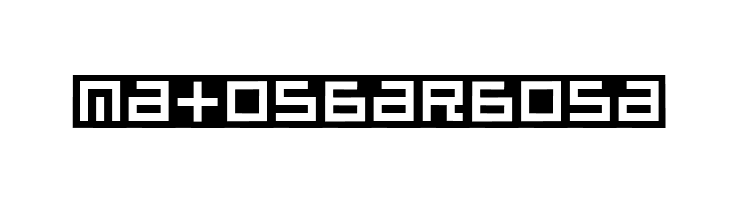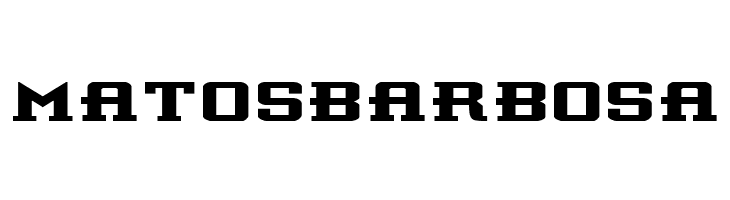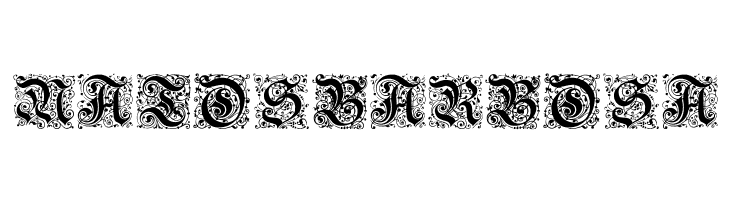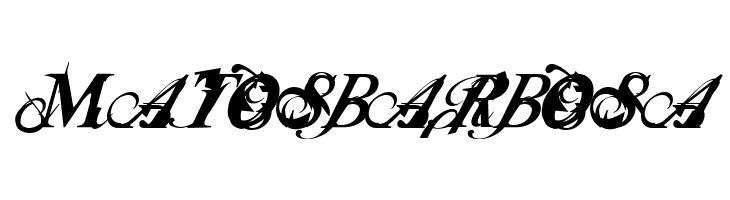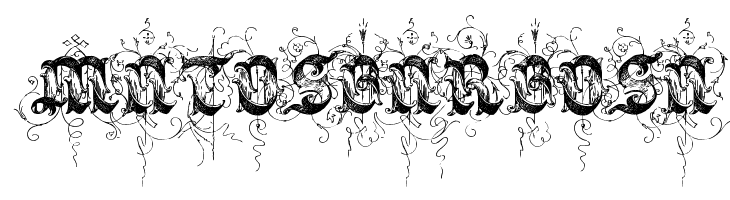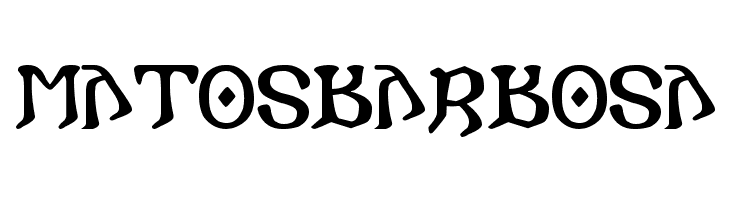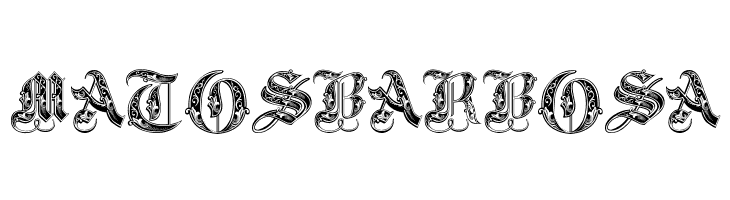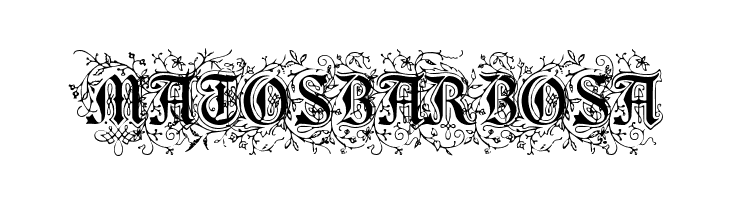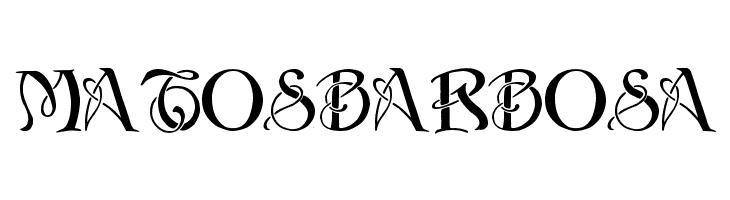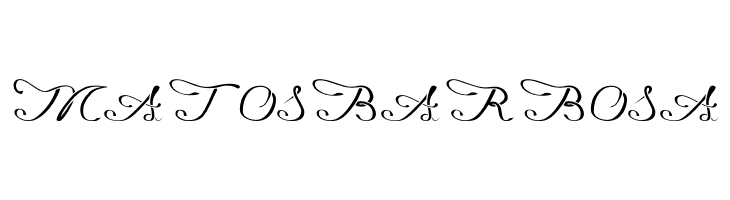
A bold, expanded font with a geometric, industrial style.
An ornate and intricate decorative font with elaborate flourishes.
An ornate and decorative font with intricate flourishes, ideal for regal and elegant designs.
An ornate, gothic-inspired font with foliar embellishments.
An elegant script font with intricate curves and decorative swashes.
A classic, elegant script font with flowing curves and intricate details.
A playful, casual handwritten font with a dynamic and lively feel.
A playful, informal handwritten font with irregular strokes and a whimsical style.
A whimsical, playful handwritten font with dynamic strokes and a spontaneous feel.
A classic, elegant script font with flowing, cursive letters and intricate flourishes.
A playful, whimsical font with irregular, flowing letterforms and a handwritten style.
A decorative font with characters integrated into barcode patterns, ideal for modern and tech-inspired designs.
Highly decorative floral illustration font.
A modern, inline font with geometric shapes and smooth curves.
A playful, handwritten font with irregular, organic letterforms.
A whimsical, hand-drawn font with playful curls and swirls.
A calligraphic font with sharp, angular lines and a medieval influence.
An ornate script font with elaborate flourishes and high contrast, reminiscent of 18th-century calligraphy.
A distressed, stamp-like font with characters encased in circular rings, offering a vintage, grunge aesthetic.
A distressed, grunge-style font with characters in circular backgrounds, resembling worn-out ink stamps.
A dramatic and ornate Blackletter font with intricate flourishes.